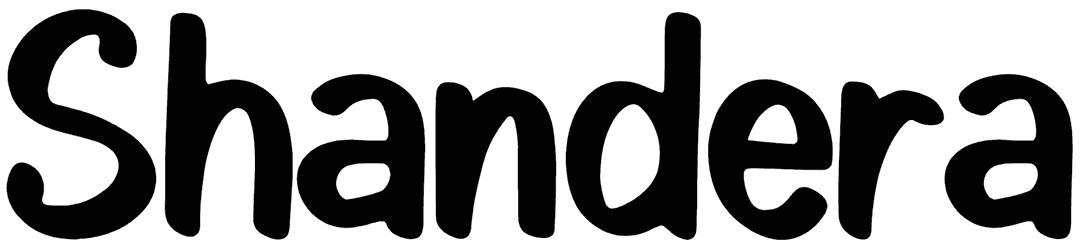
Shandera Font
Would you like to illustrate your context with a contemporary and minimal style? This handwritten font, which is called Shandera, with its bulky and casual hand-drawn face, can make this happen. Even though you can’t count on punctuation marks, this script font can be matched with many creative designs, for instance, planners, apparel, books, mugs, and so forth.